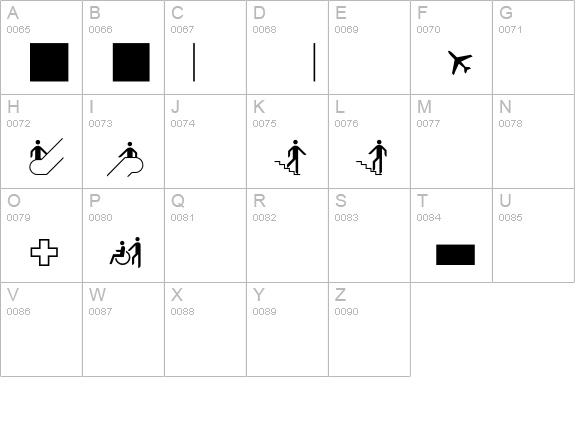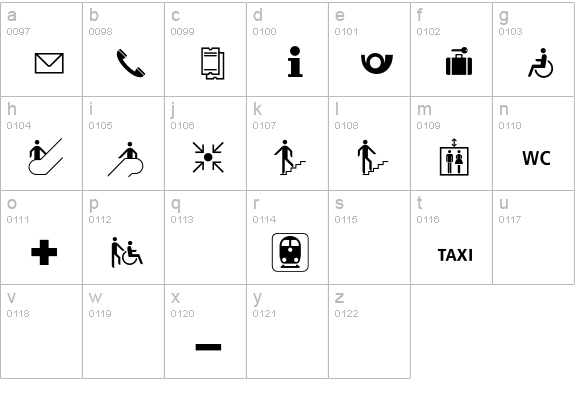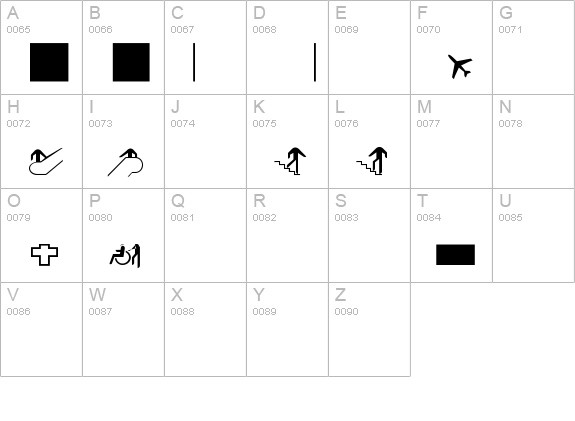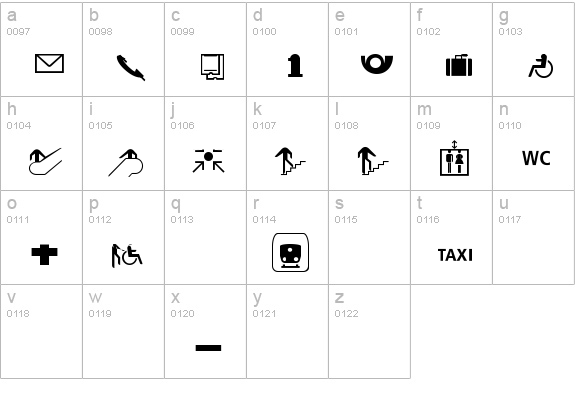
BVG-Pict font is a versatile and stylish typeface that is perfect for adding a touch of creativity to your design projects. With its unique and eye-catching pictorial elements, this font is sure to make a statement and captivate your audience. The BVG-Pict font is not only visually appealing but also incredibly easy to read, making it suitable for a wide range of design applications. The best part is that BVG-Pict font is available for free download at FontsMarket.com, allowing you to access this stunning typeface without any cost. Whether you're working on a poster, logo, website, or any other design project, BVG-Pict font will bring your ideas to life and help you stand out from the crowd. Download BVG-Pict font today and take your designs to the next level!